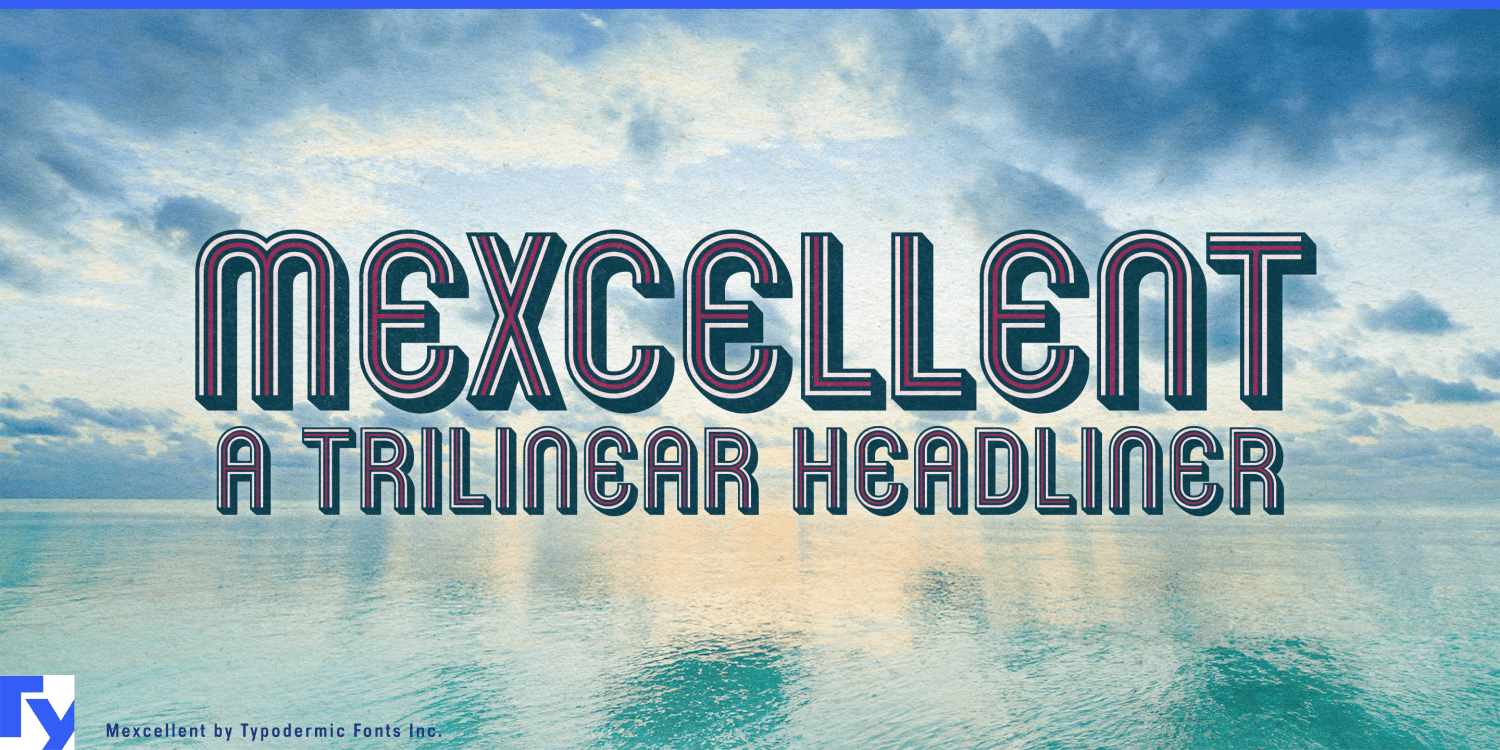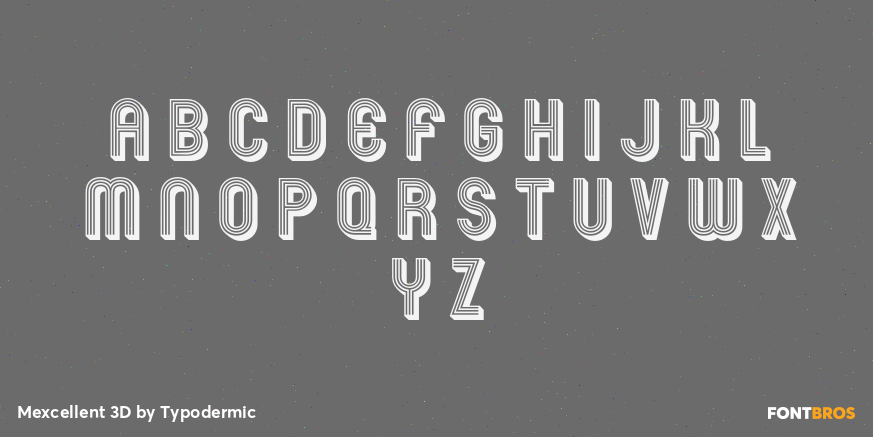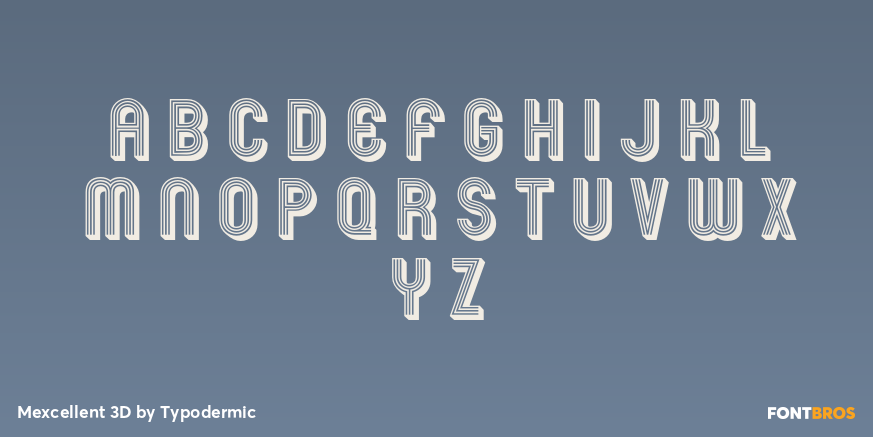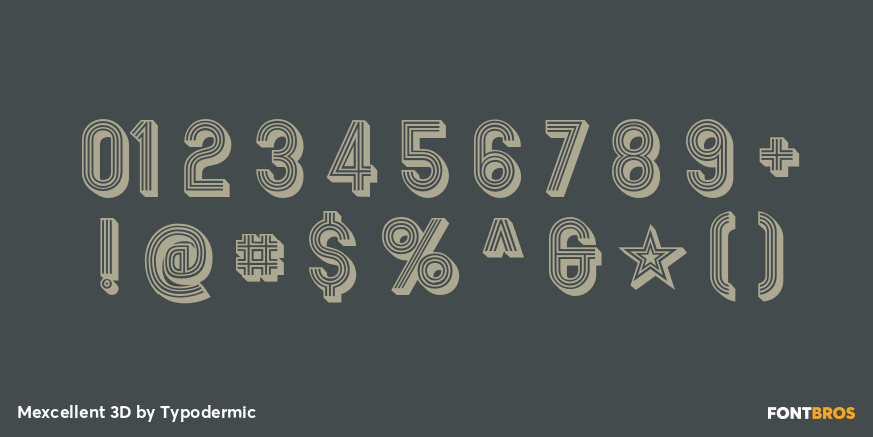
Mexcellent 3D
Mexcellent 3D combines the family’s trilinear face with a built-in down-and-right extrusion. The stripe pattern remains open across the front while the added side planes give every character a fixed direction of depth, producing a finished dimensional treatment in one setting instead of requiring the Back, Middle and Outside layers to be assembled.
Use Mexcellent 3D for live-sports titles, team introductions, arcade and tournament graphics, footwear launches, event posters, and merchandise where a short word needs to project off the surface immediately. It is most convincing at display sizes and against uncluttered or strongly contrasting backgrounds; choose the separated layer styles when the face, stripe colors, and base need independent control.
Mexcellent 3D by Typodermic